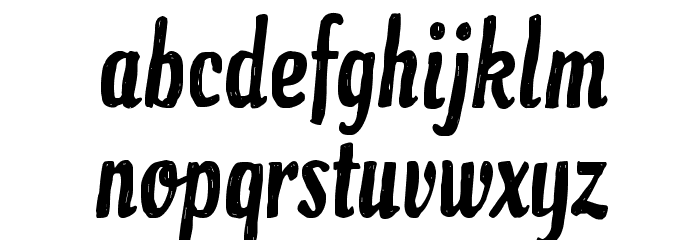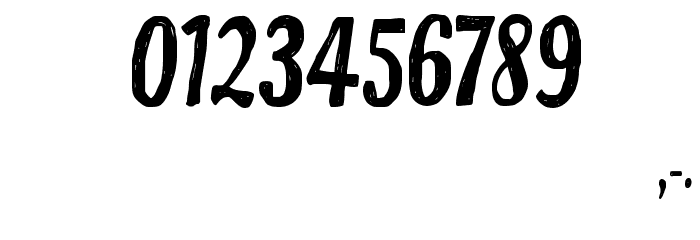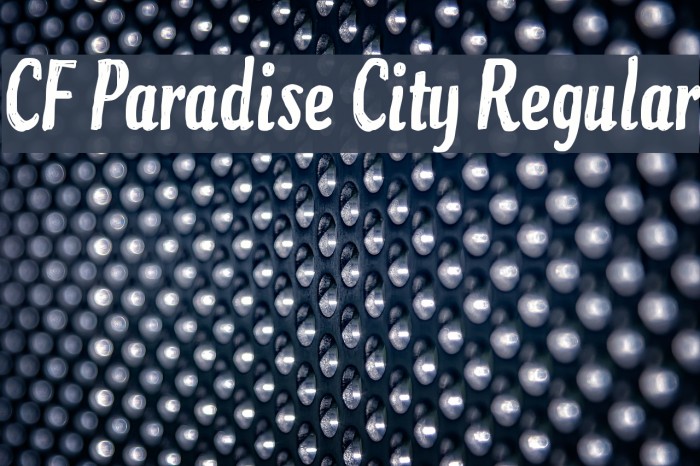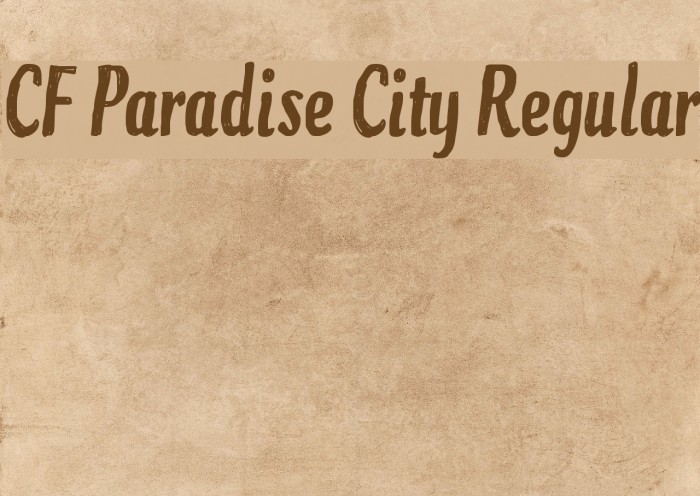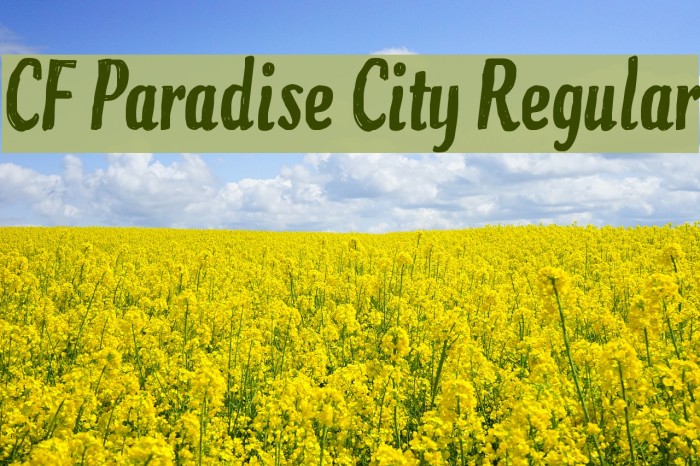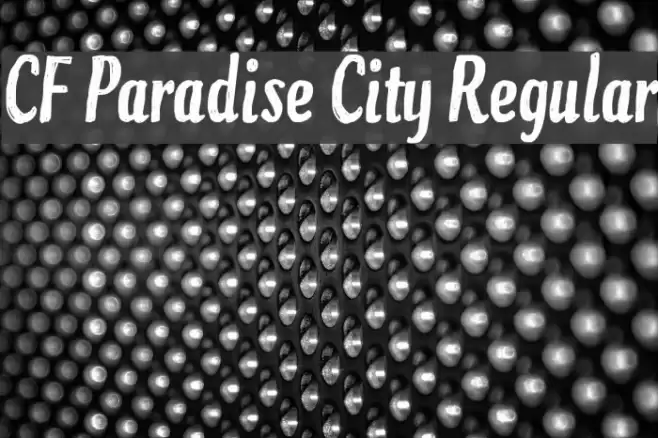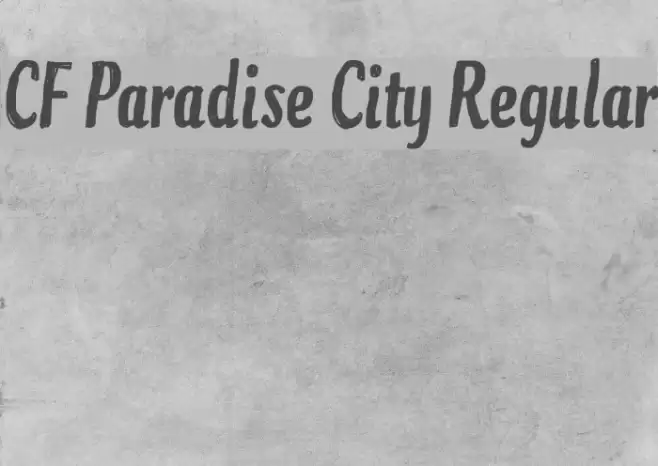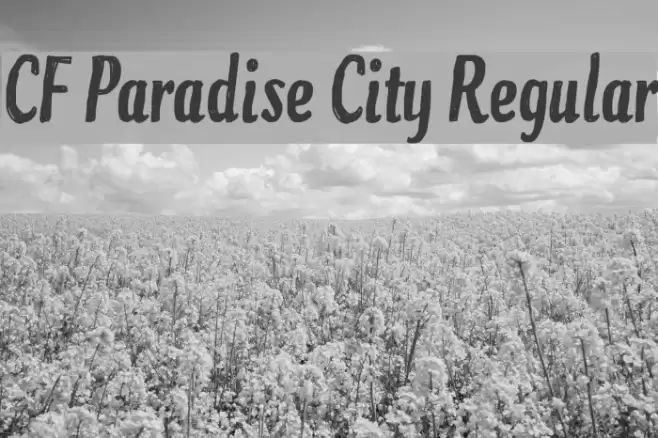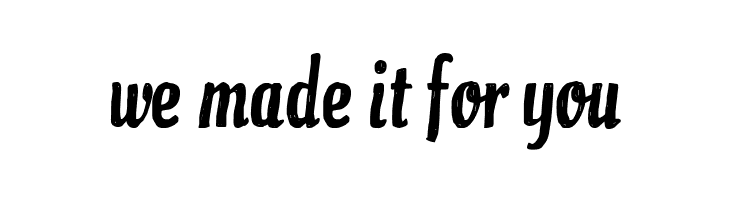
CF Paradise City Regular Font
This font exudes a bold and dynamic presence with its brush-like strokes and slightly irregular edges, giving it a hand-painted feel. The uppercase letters are tall and commanding, while the lowercase letters maintain a consistent flow, enhancing readability. The numbers are robust and align well with the overall style, making them suitable for impactful displays. Special characters are crafted with the same attention to detail, ensuring they integrate seamlessly with the rest of the typeface. This font's unique character is perfect for projects that require a touch of artistic flair.
A bold, brush-style font with a hand-painted appearance.
- Proposed Projects: Ideal for posters, branding, packaging, and creative headlines.